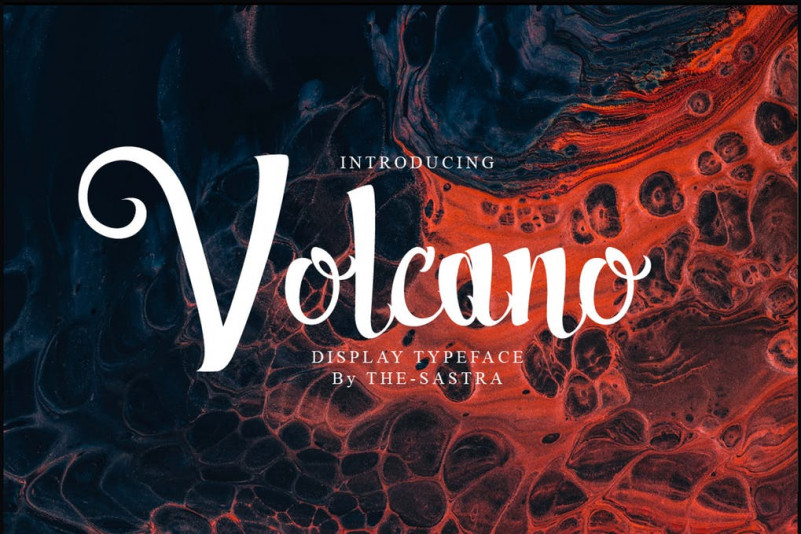
Volcano Font
This Volcano font is inspired by urban script, ocean, ink and culture. Monteradoo font is perfect for badges, branding, labels, apparel, headlines, signage, logo, quote, apparel and other creative applications.